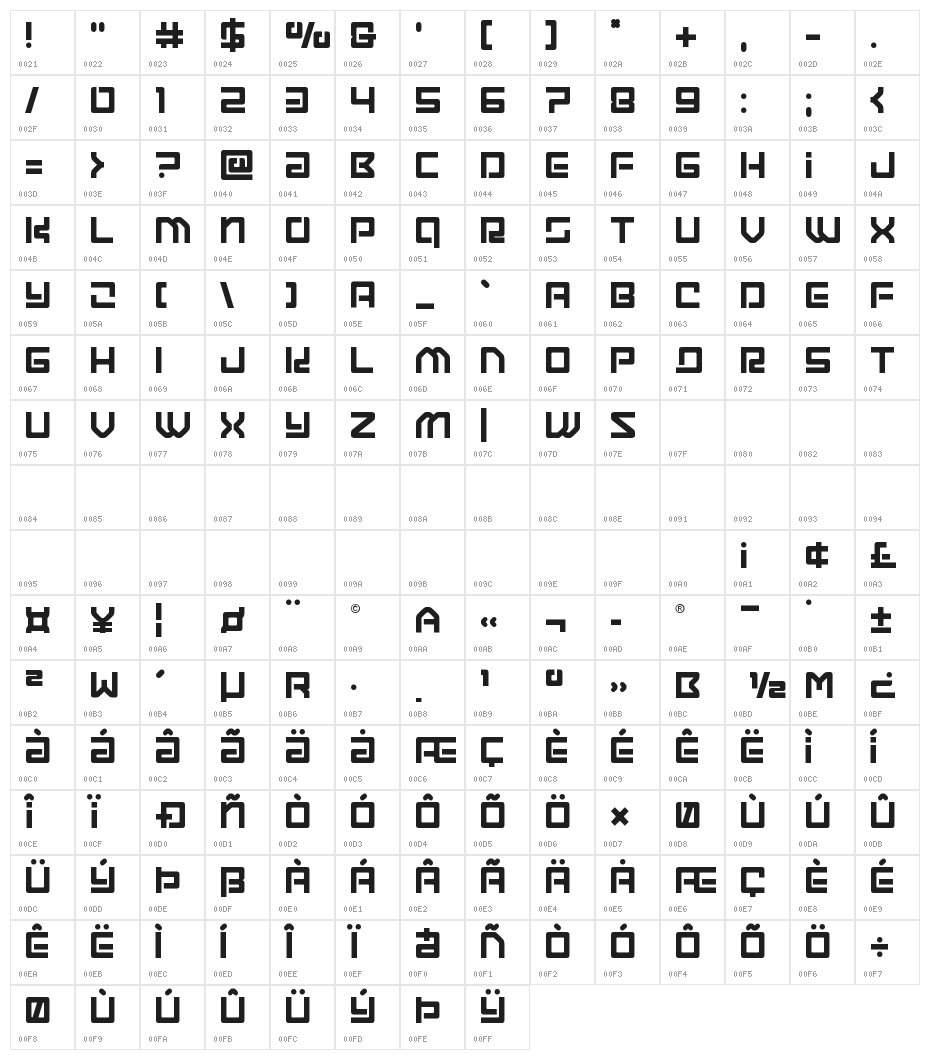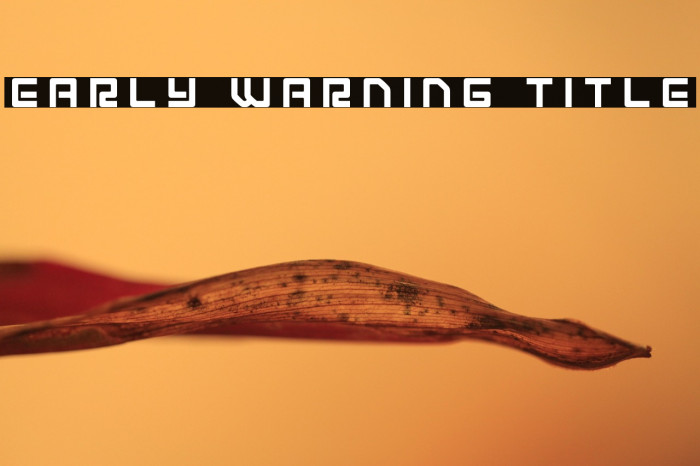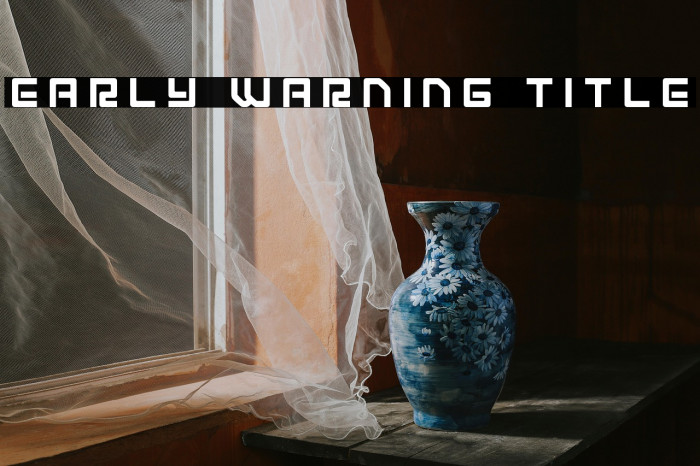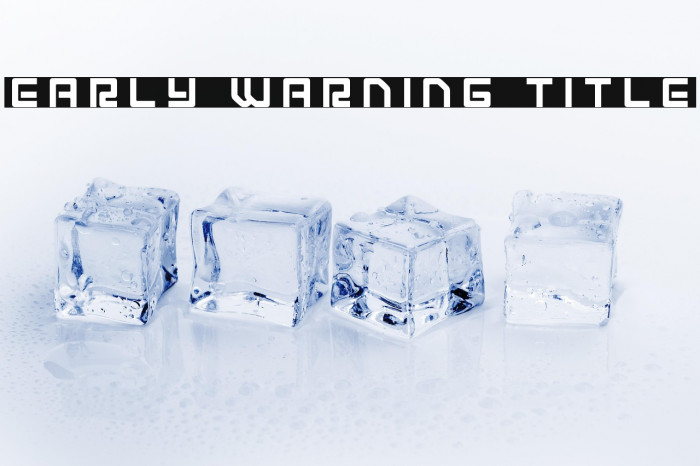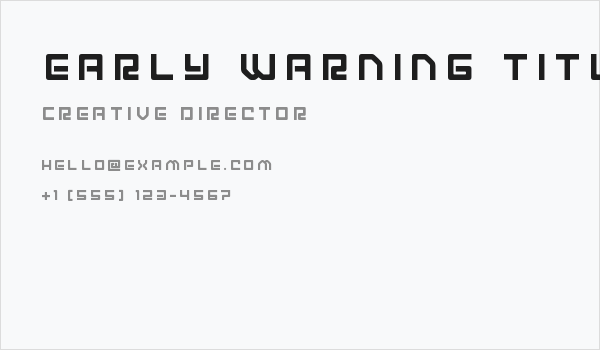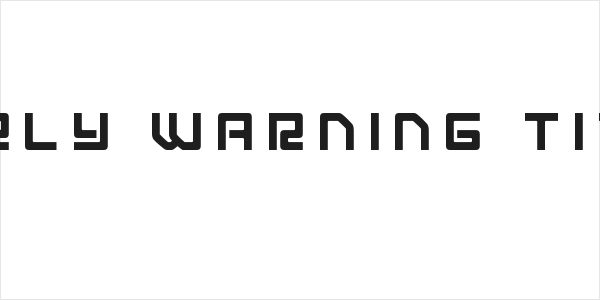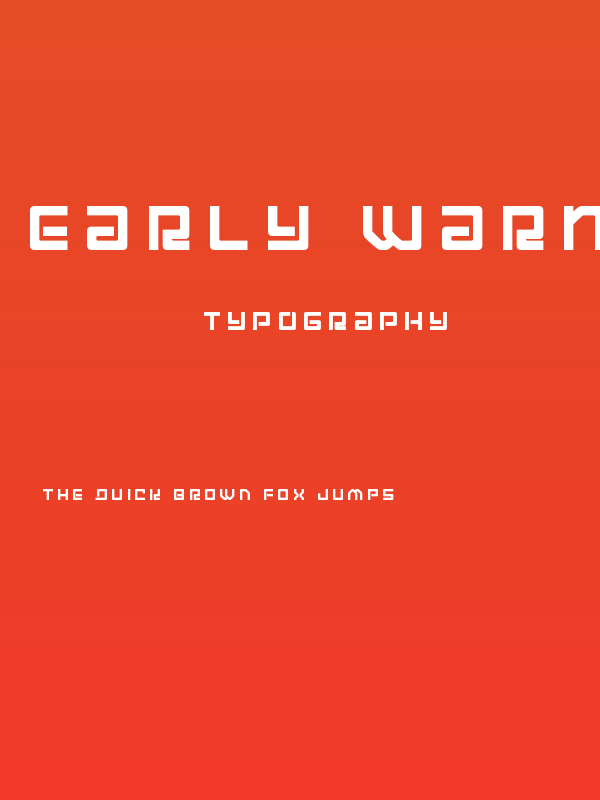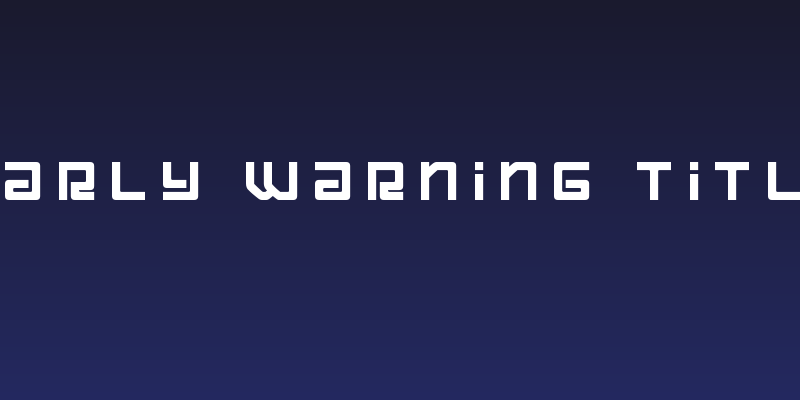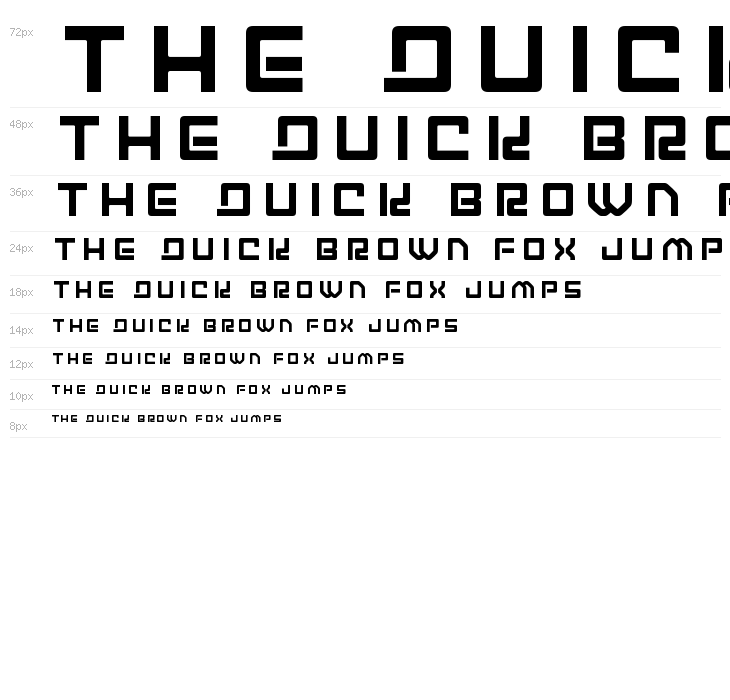
Early Warning Title Font
Early Warning Title Description
This font features a bold, geometric style with a futuristic and digital aesthetic. The characters are uniformly structured with sharp angles and a block-like appearance, creating a sense of modernity and precision. The uppercase and lowercase letters maintain a consistent height, contributing to a monospaced feel, although it is not strictly monospaced. The numerals and special characters follow the same design principles, ensuring a cohesive look across all glyphs. The font's design is reminiscent of digital displays or sci-fi interfaces, making it suitable for technology-related projects.
| Use Case | Headlines, Logos, Digital Interfaces |
| Proposed Projects | Ideal for technology branding, digital interfaces, sci-fi themed designs, and modern advertising. |